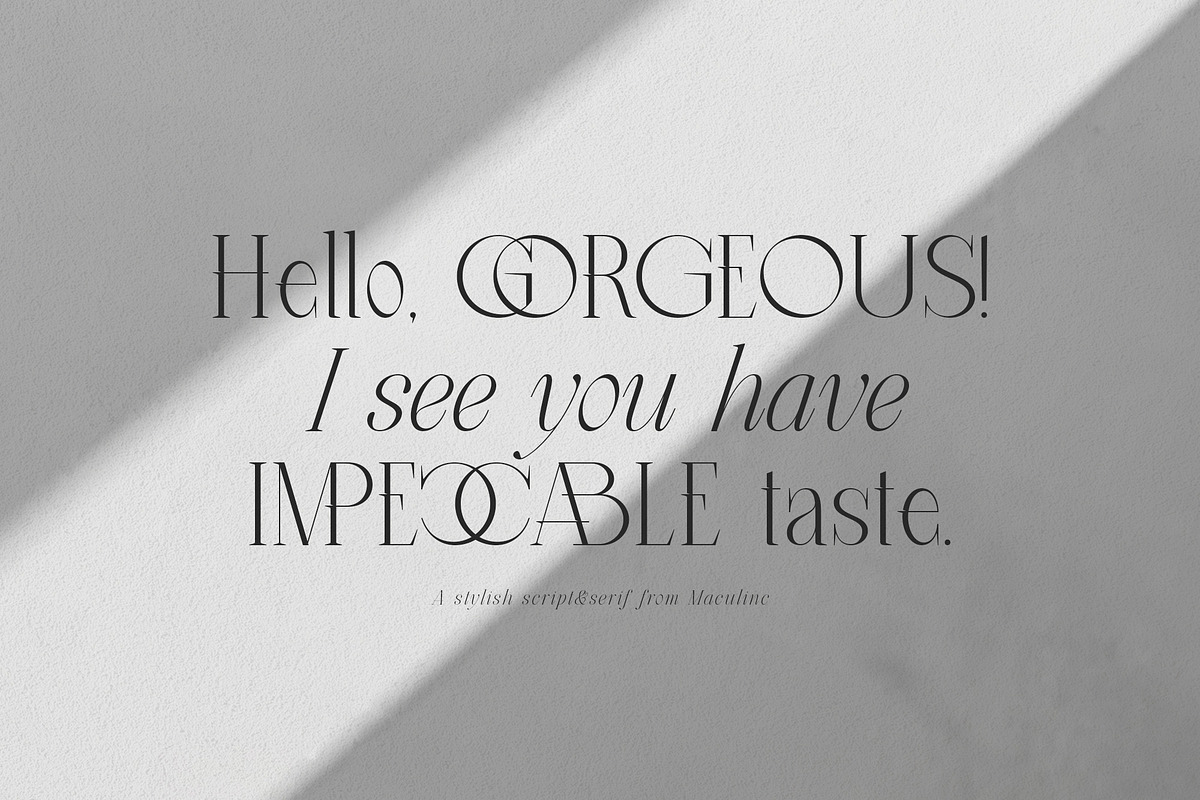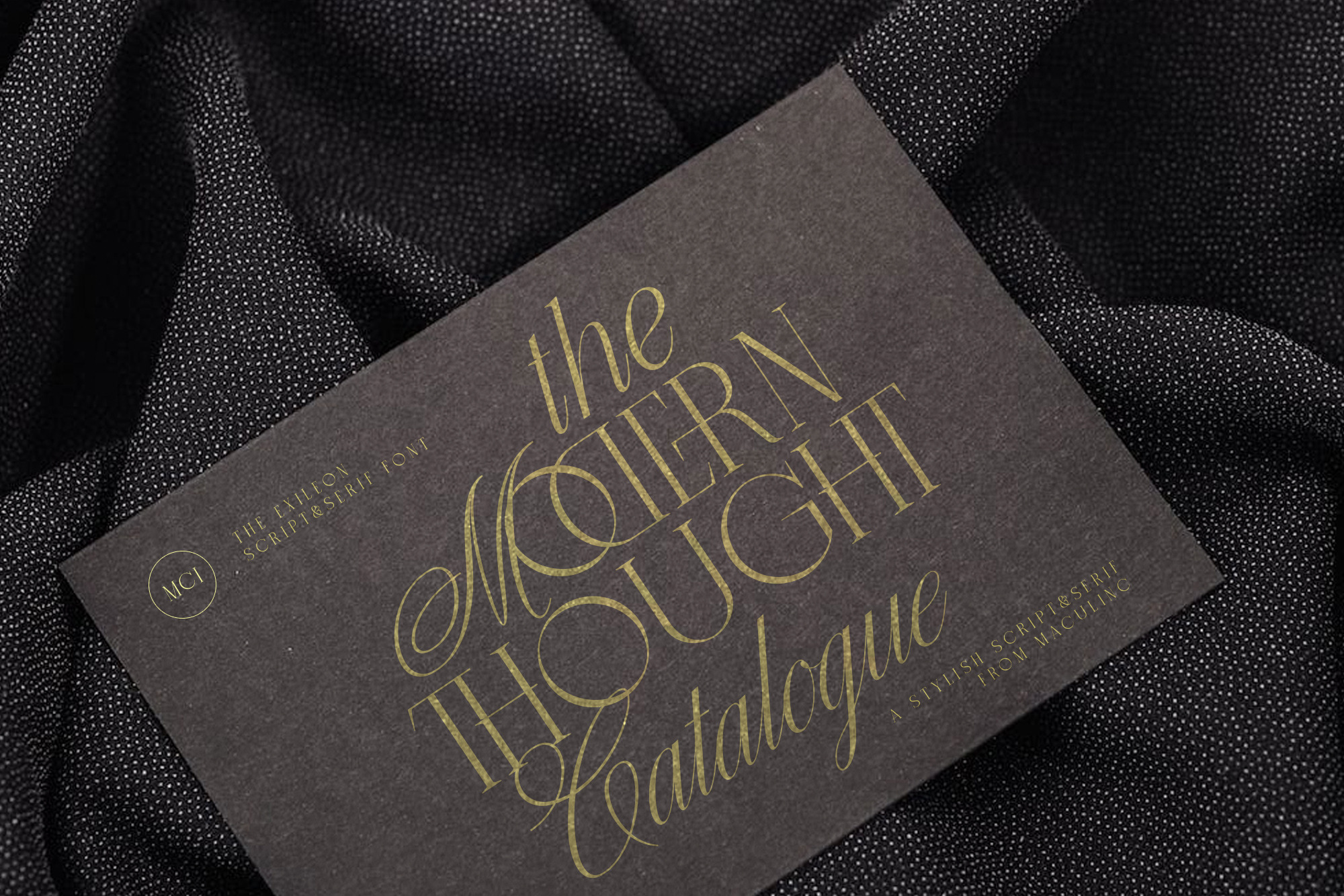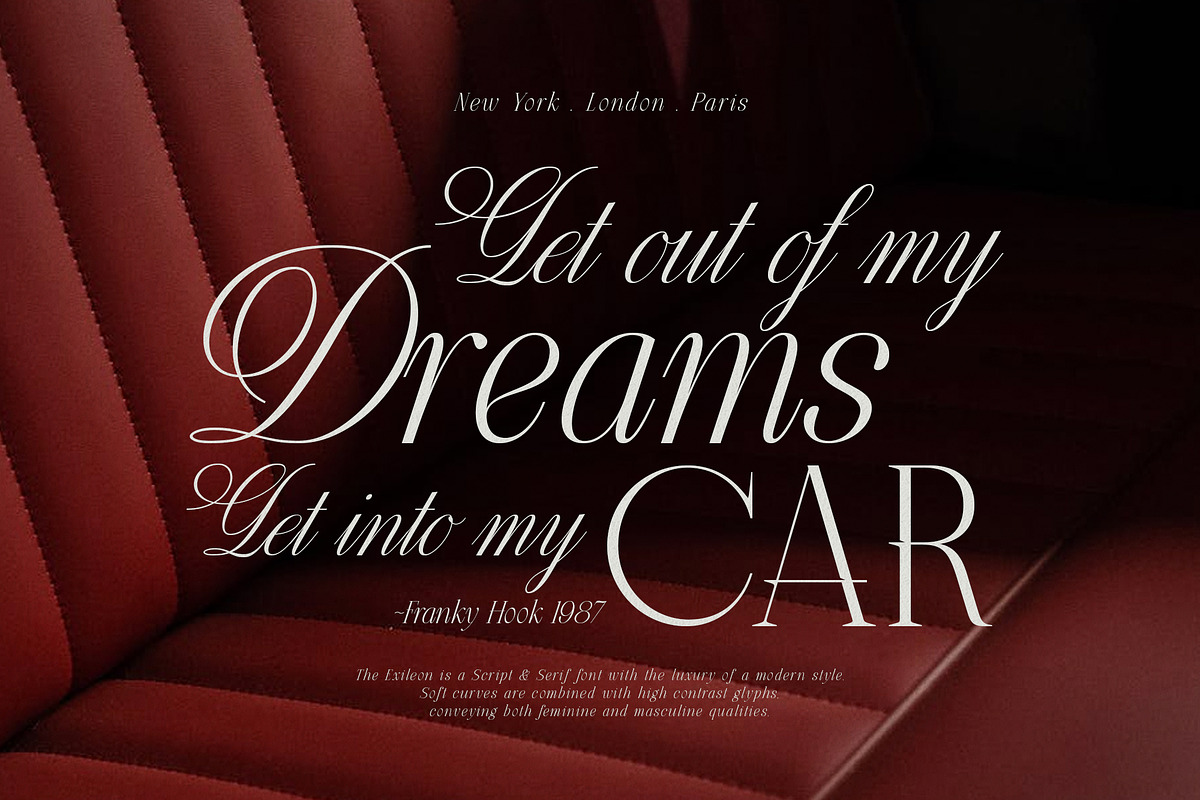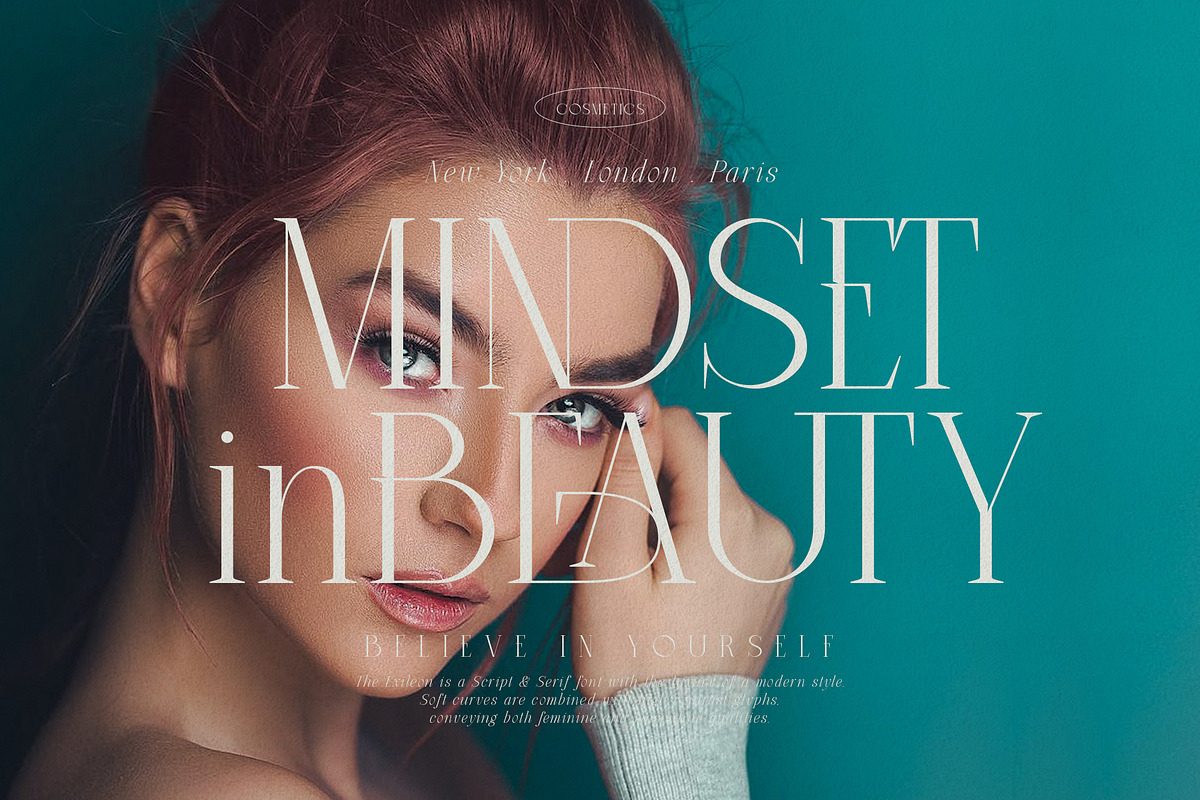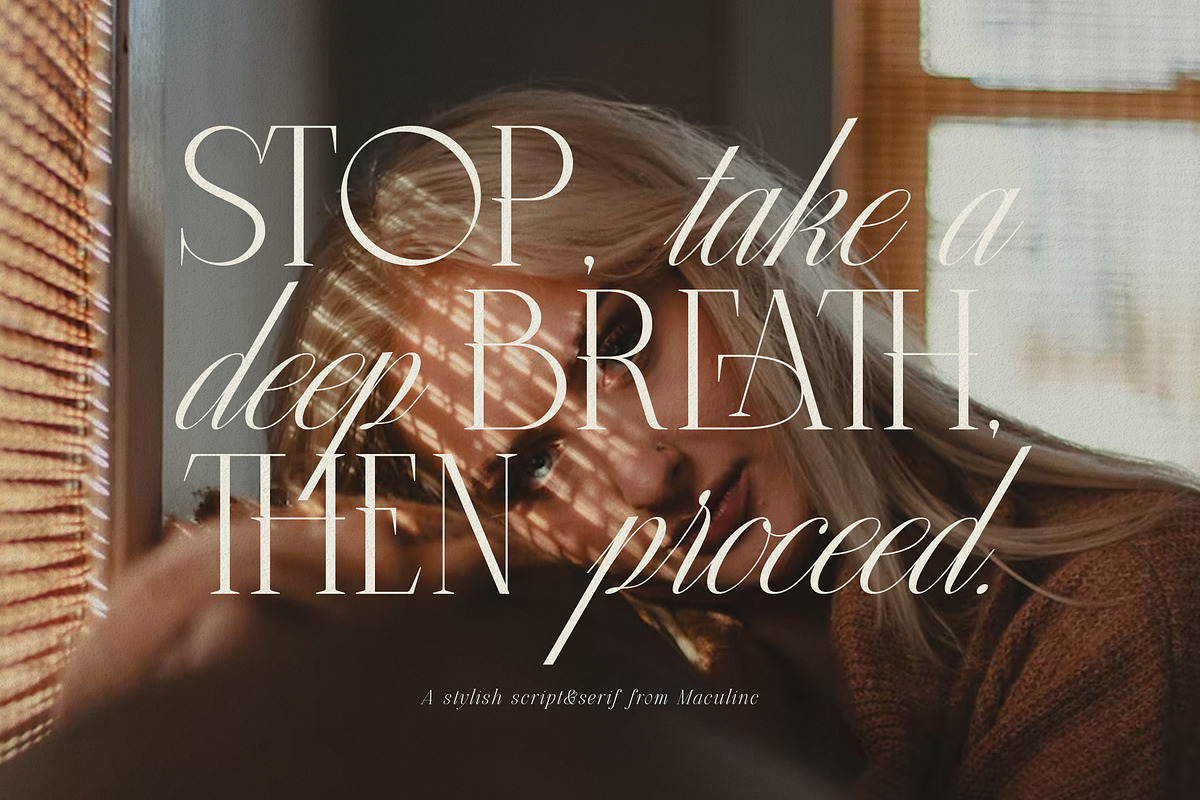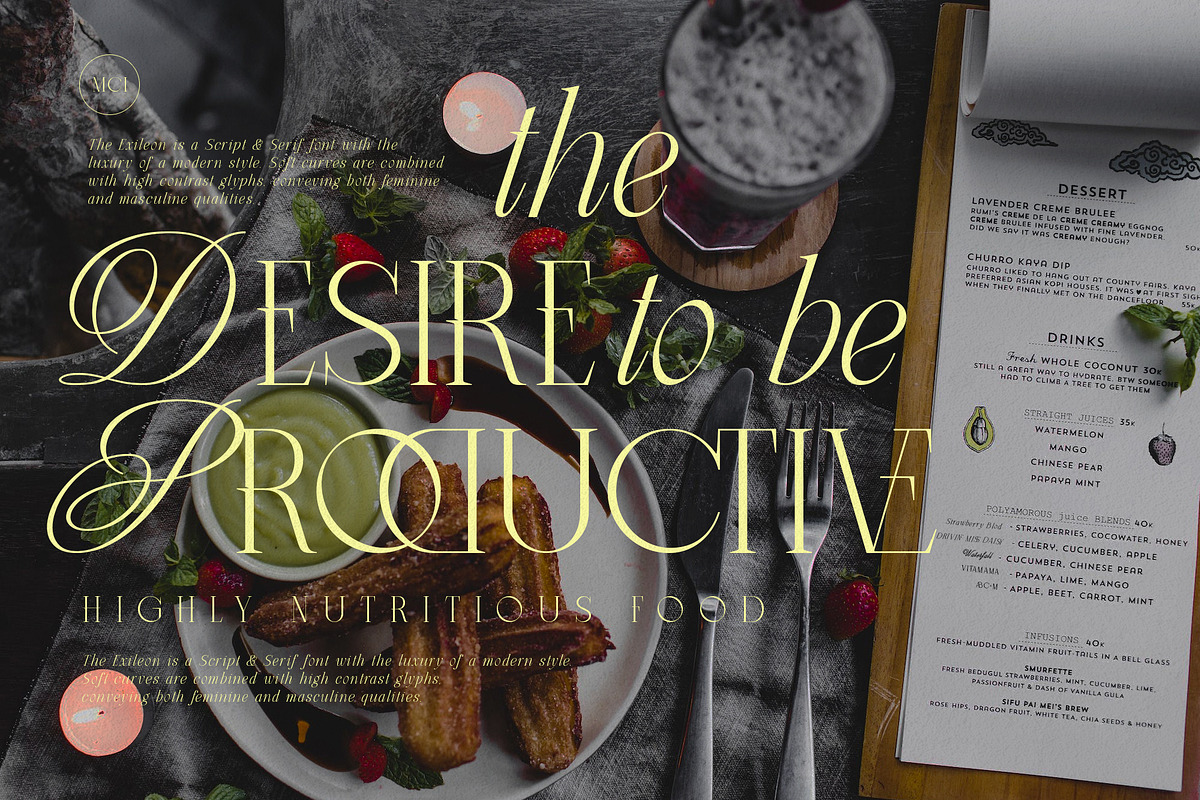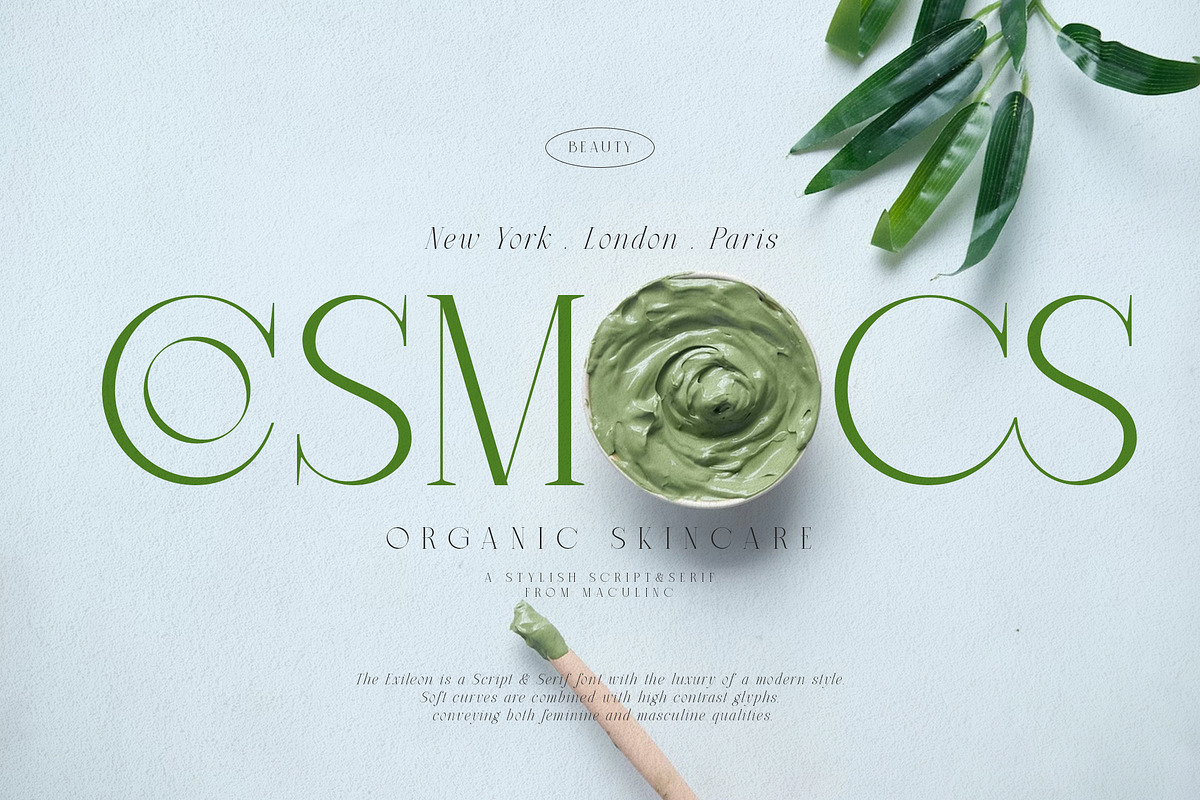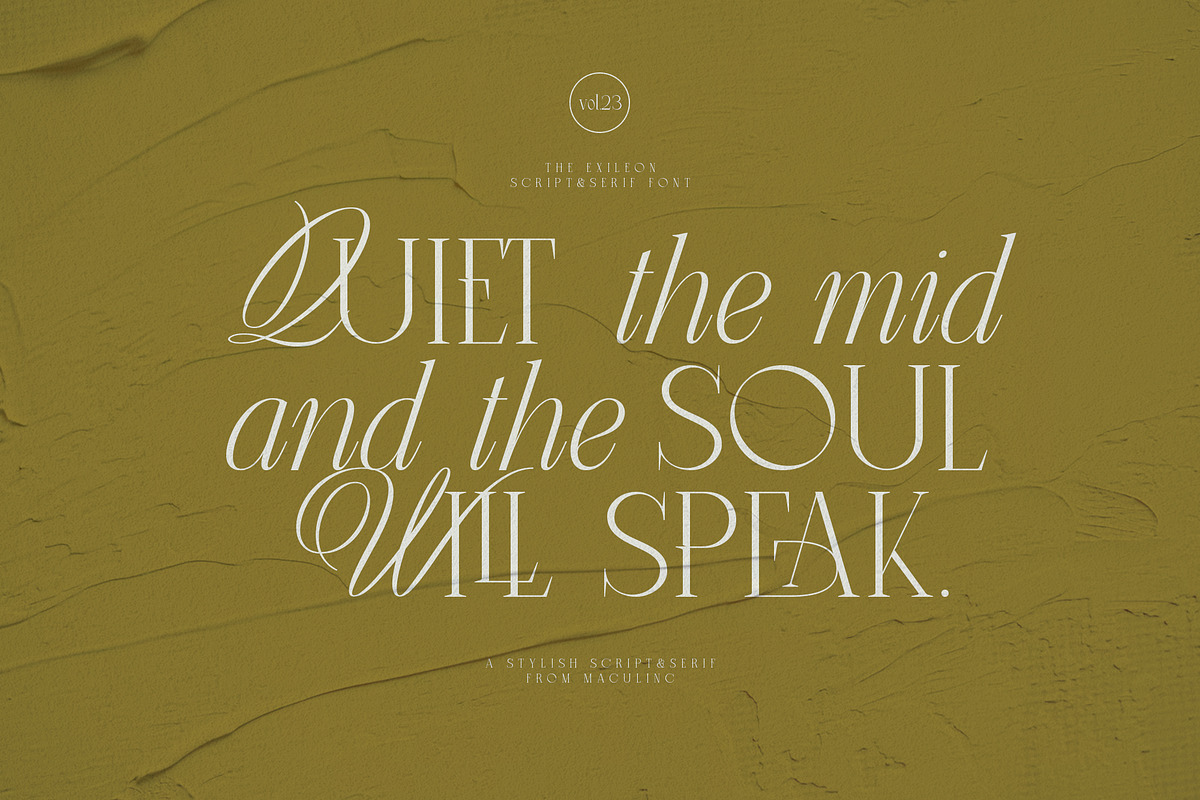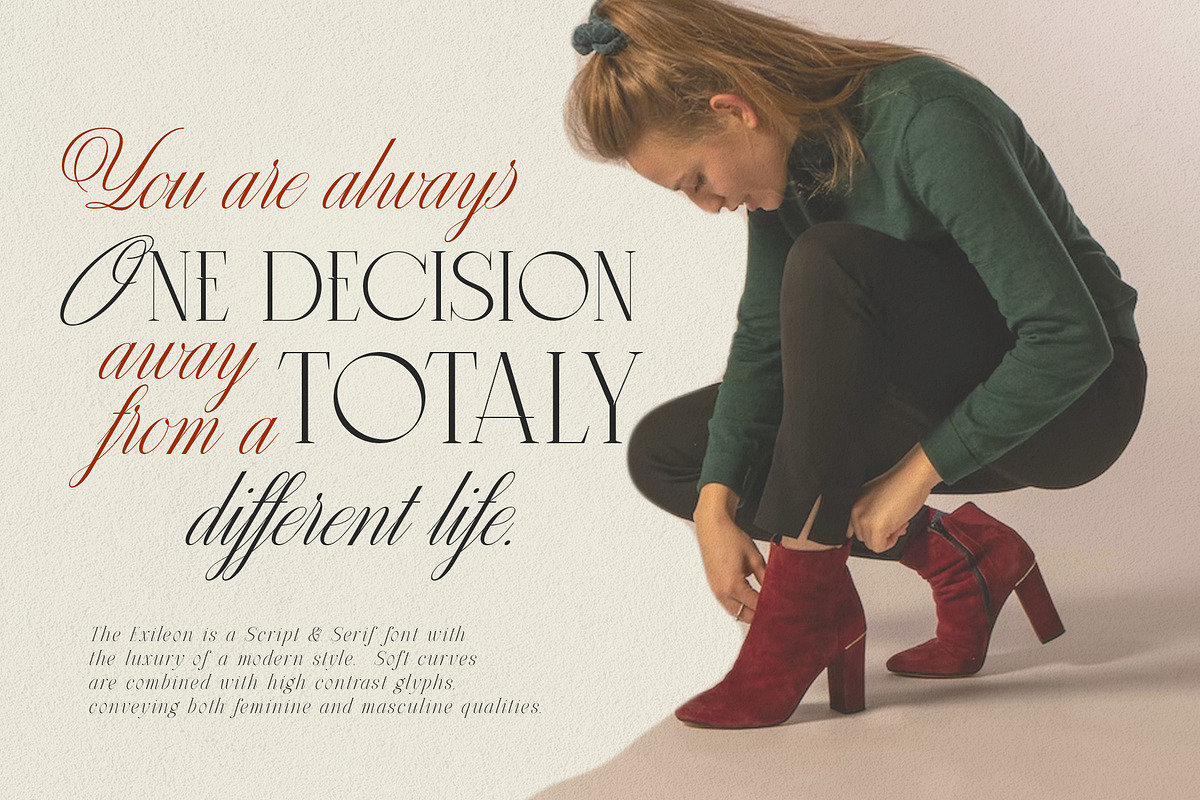
The Exileon - Script&Serif font duo
The Exileon is a Script&Serif Font with a modern style. Soft curves are combined with high contrast glyphs, conveying both feminine and masculine qualities.
This font consists of 3 Regular Serif Fonts, Italic Serif and Script, with many unique ligatures provided. Great in layout design for quotes or body copy, best used as a display for headings, logos, branding, magazines, product packaging, and invitations.
Mix between Script and Serif to create a unique and very beautiful look, and add italics to complete the sentence you want.